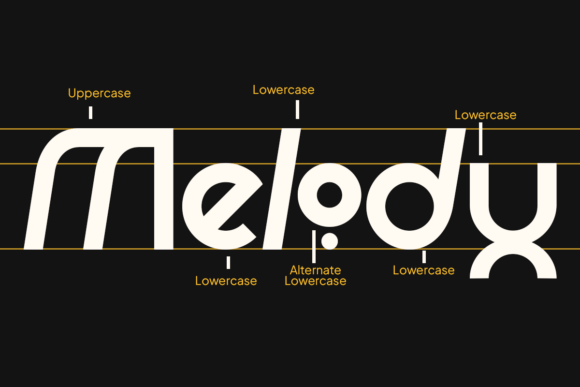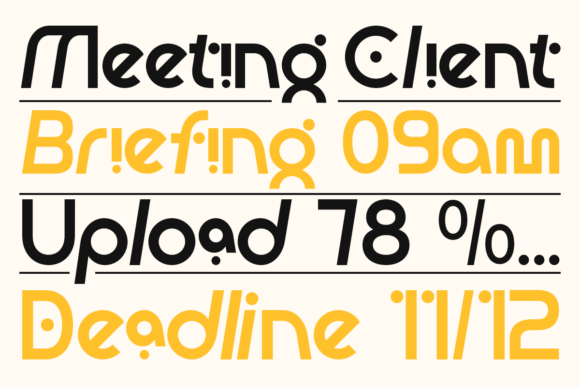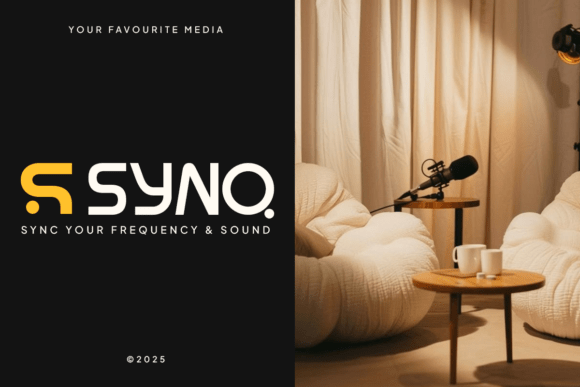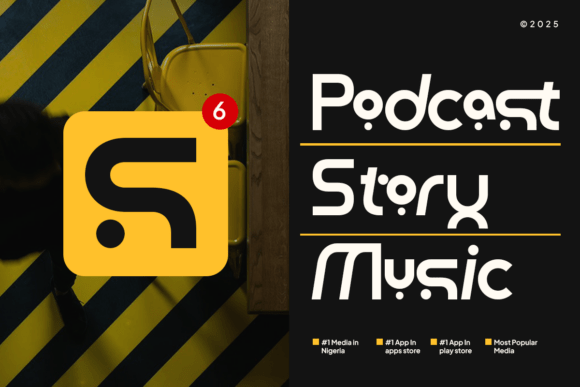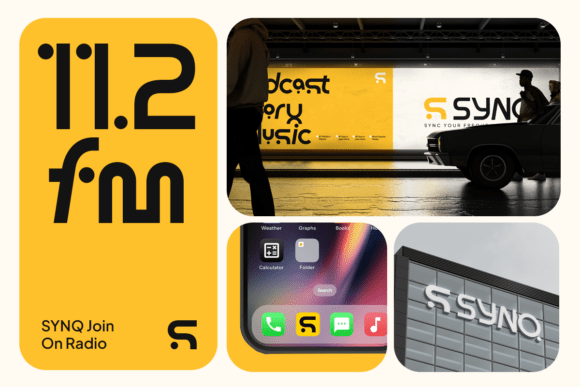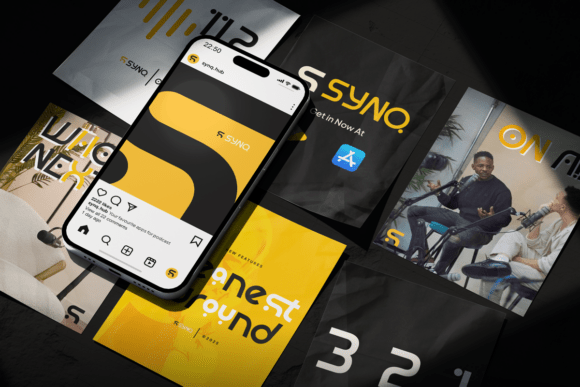
Gisgax Font: Elevate Your Brand with a Modern Geometric Display Font
In the world of typography, fonts play a crucial role in shaping brand identities and communicating messages effectively. For designers and crafters seeking a bold and professional look, the Gisgax font is an excellent choice. Designed specifically for corporate identity, digital branding, and tech-driven communication, Gisgax is a modern geometric display font that exudes confidence and sophistication.
Clean, Modular Shapes for a Professional Presence
Gisgax boasts clean, modular shapes that provide a strong foundation for its design. The font’s balanced line structure and carefully crafted character details create a sense of harmony and stability, making it perfect for logos, UI design, advertising, and headline typography. The modular shapes also allow for excellent legibility, ensuring that your message is conveyed clearly and effectively.
Unique Futuristic Character Details
What sets Gisgax apart from other geometric display fonts is its unique futuristic character details. The font’s design incorporates subtle nuances that give it a distinctive edge, making it ideal for brands looking to stand out in a crowded market. The futuristic elements also lend a sense of innovation and forward-thinking, perfect for tech-driven companies and startups.
Versatility and Flexibility
Gisgax is a versatile font that can be used across various design applications. Its bold and geometric design makes it suitable for:
- Logos: Create a lasting impression with a custom logo that showcases your brand’s personality and values.
- UI Design: Enhance user experiences with a clear and intuitive interface that incorporates Gisgax font.
- Advertising: Grab attention with bold and eye-catching headlines that communicate your message effectively.
- Headline Typography: Add emphasis and hierarchy to your content with Gisgax’s distinctive and geometric design.
Gisgax offers several benefits for designers and crafters, including:
- Time-saving: With Gisgax, you can quickly create professional-looking designs without spending hours on typography.
- Consistency: The font’s geometric design ensures consistency across various design applications, maintaining your brand’s visual identity.
- Customization: Gisgax can be easily customized to fit your brand’s unique needs, allowing you to experiment with different styles and variations.
In conclusion, the Gisgax font is an excellent choice for designers and crafters seeking a modern geometric display font that exudes professionalism and sophistication. Its clean, modular shapes, balanced line structure, and unique futuristic character details make it perfect for bold corporate identity, digital branding, and tech-driven communication. With its versatility, flexibility, and numerous benefits, Gisgax is sure to elevate your brand and take your designs to the next level.